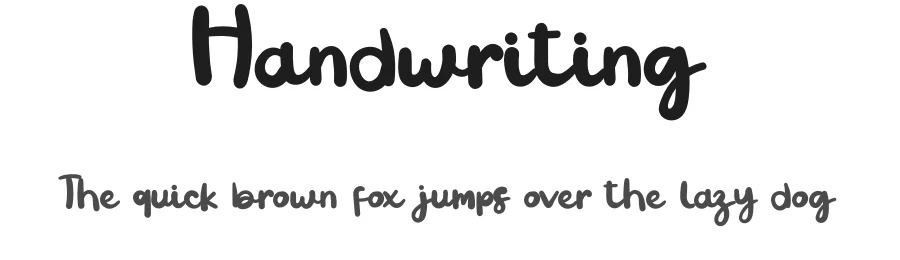
About Summer Love Font
Summer Love Specifications
| Font Family | Summer Love |
| Full Name | Summer Love |
| Version | 1.00 April 20, 2018, initial release |
| Glyph Count | 106 glyphs |
| PostScript Name | SummerLove |
Summer Love supports 107 languages.
Summer Love Font is a script font that shines as a display or heading face. Pair it with a clean sans-serif or serif font for body text β the contrast creates a clear hierarchy while the two styles stay balanced and easy to read.